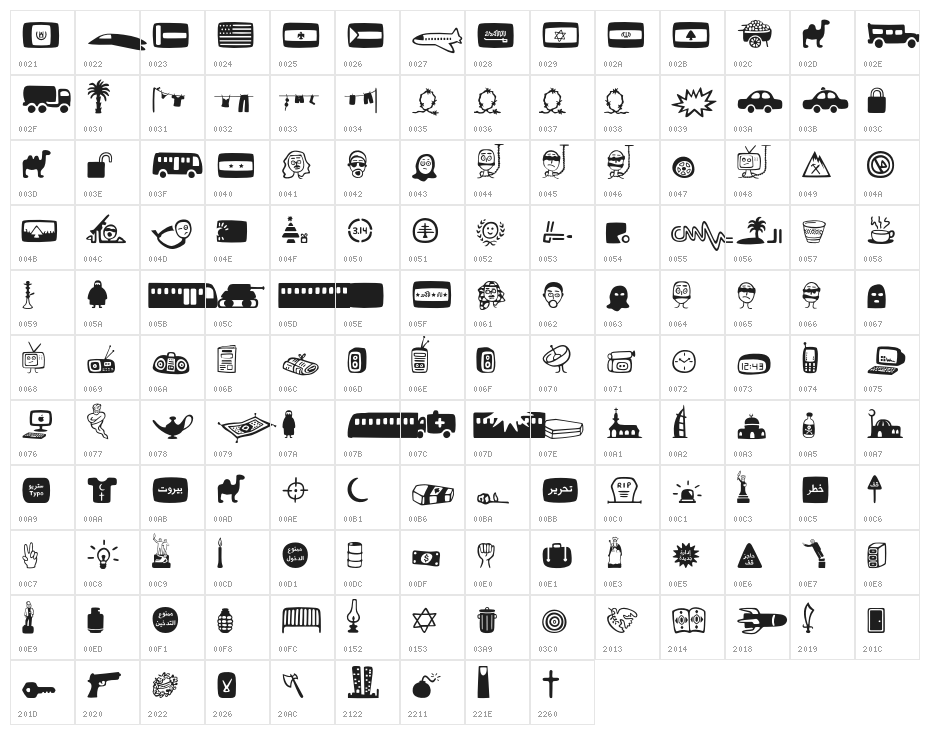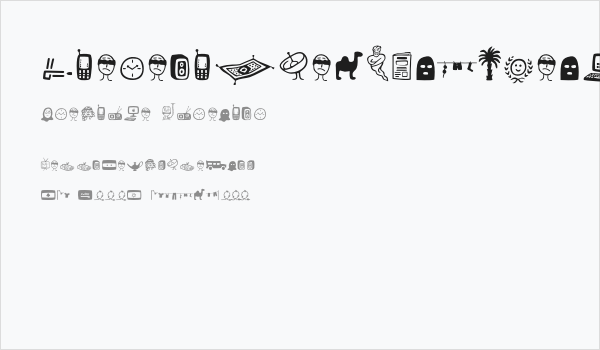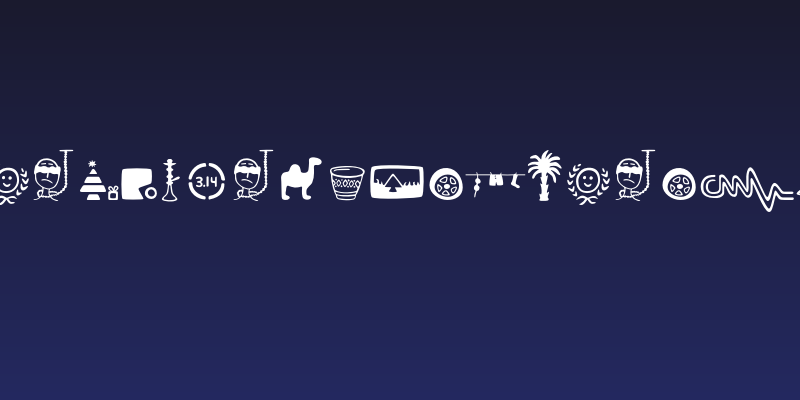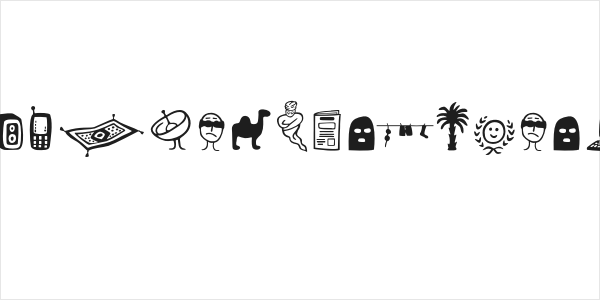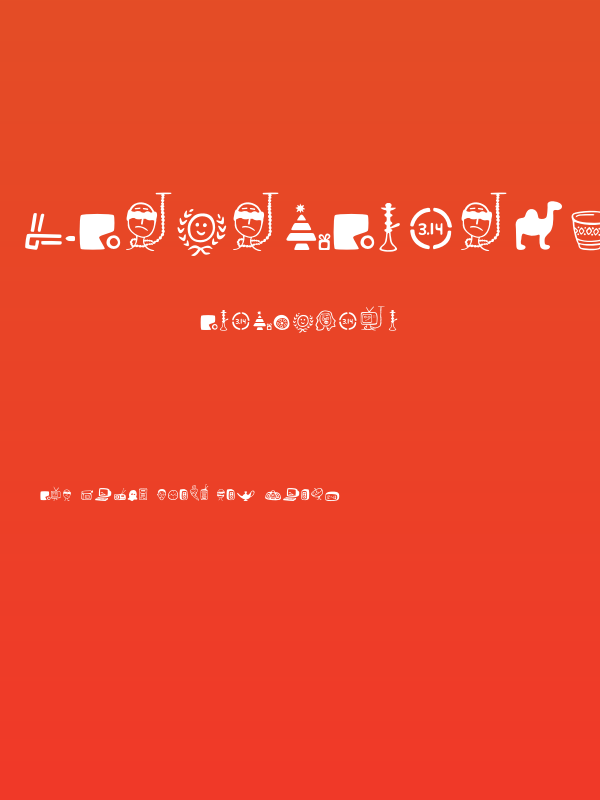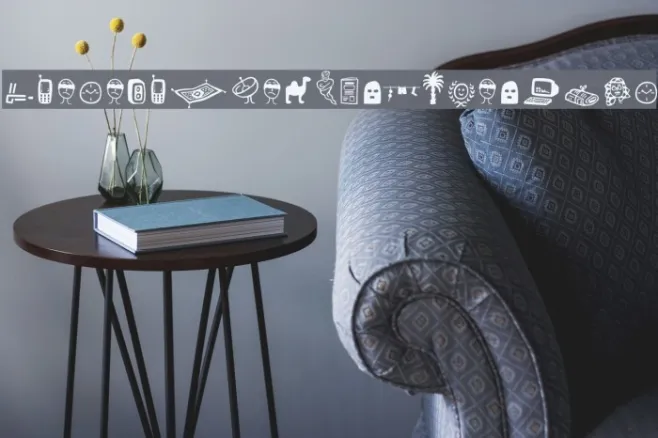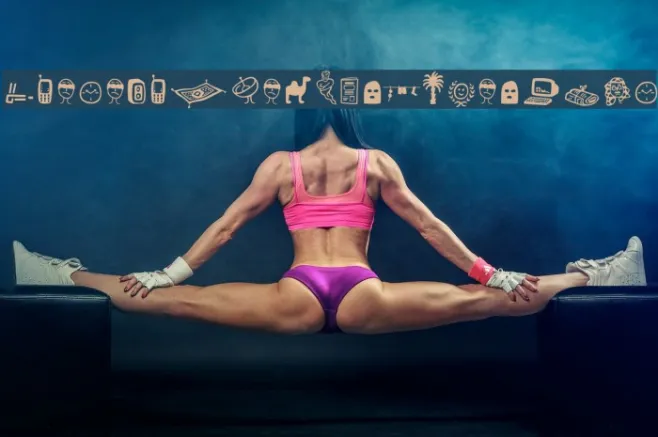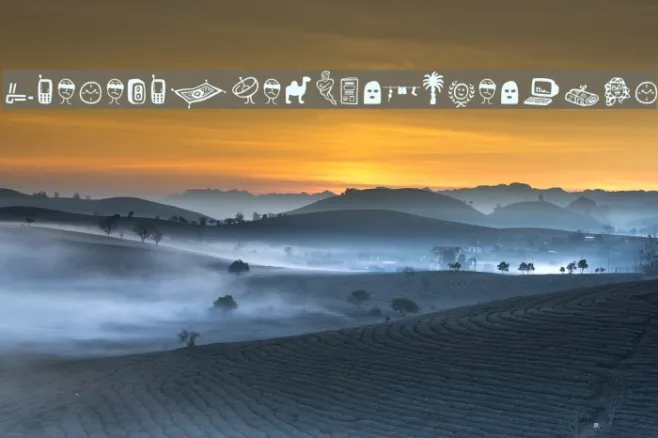
This is not a traditional font but rather a collection of unique and whimsical icons and symbols. Each character is a distinct illustration, ranging from faces and objects to abstract designs. The style is playful and cartoonish, with bold lines and a variety of shapes. The icons are detailed, offering a wide range of visual elements that can be used for creative projects. This set is ideal for adding a fun and quirky touch to designs, providing a diverse array of imagery that can be used in various contexts.
| Use Case | Logos, Illustrations, Graphic Design |
| Proposed Projects | Ideal for creative projects such as graphic design, children's books, educational materials, and playful branding. |